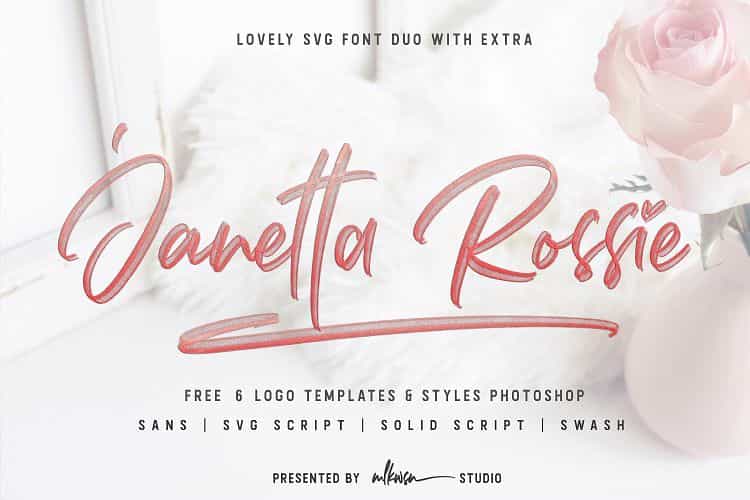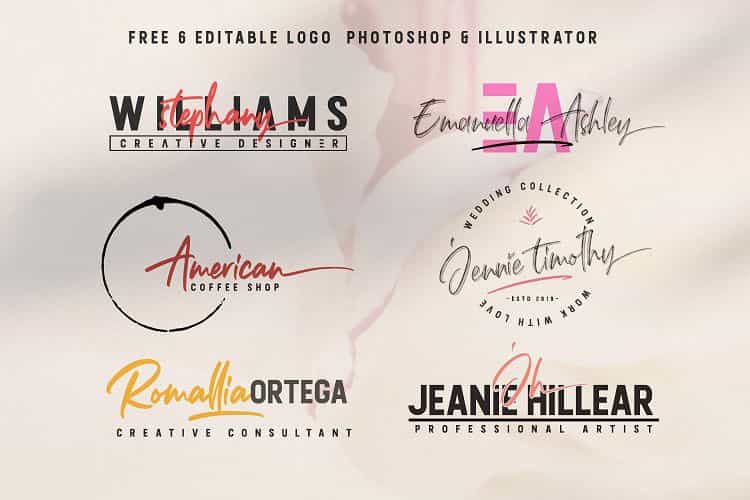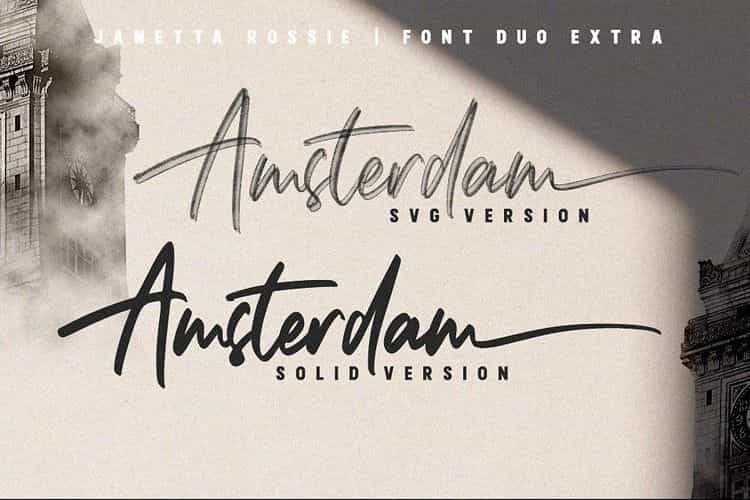
Discover Janetta Rossie Script Font, part of the Brush Calligraphy collection—a versatile and unique font perfect for adding a personal touch to your projects. Download it for free and enjoy crafting designs with style, from invitations to social media posts. This font is available exclusively for personal use, giving you the freedom to create without limits. Unlock your creativity with Janetta Rossie Script Font today!
Presenting Janetta Rossie Font. Janetta Rossie Script Font is a beautiful font duo that comes with SVG opentype and some EXTRAS!Janetta Rossie is a Perfect Duo Pairing that has lowercase, uppercase, symbol and also multi language support with more ligatures in this font. Janetta Rossie also includes Swash and doodle font that you can use to create a logo for branding, beautiful fashion design, suitable for wedding invitation or handwritten quote.